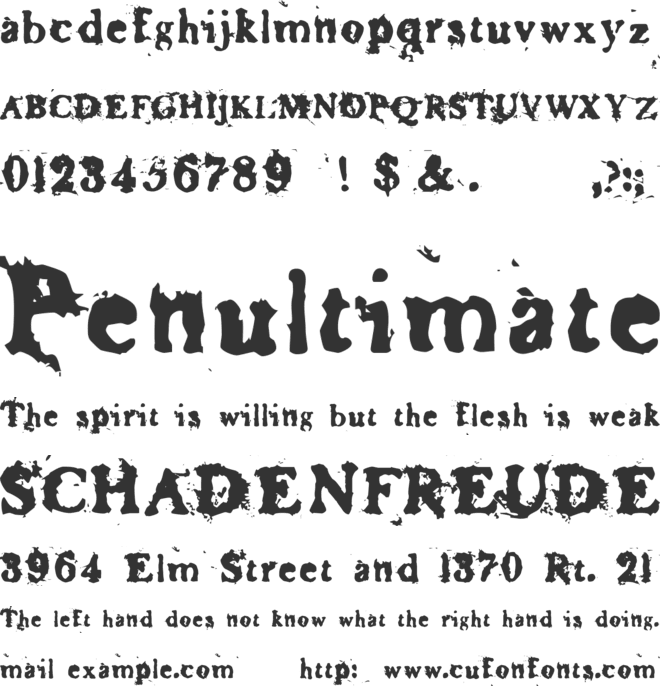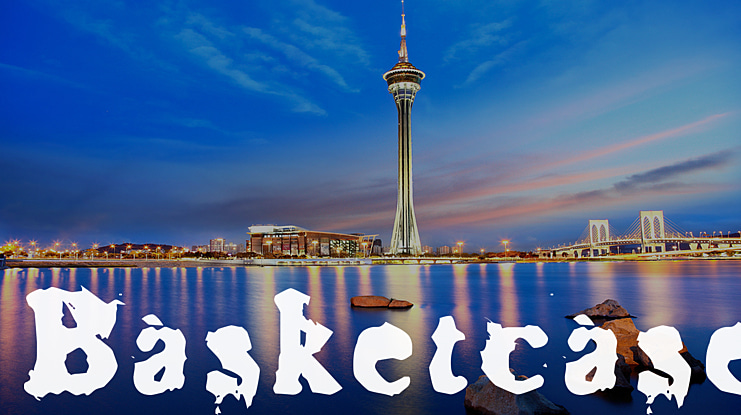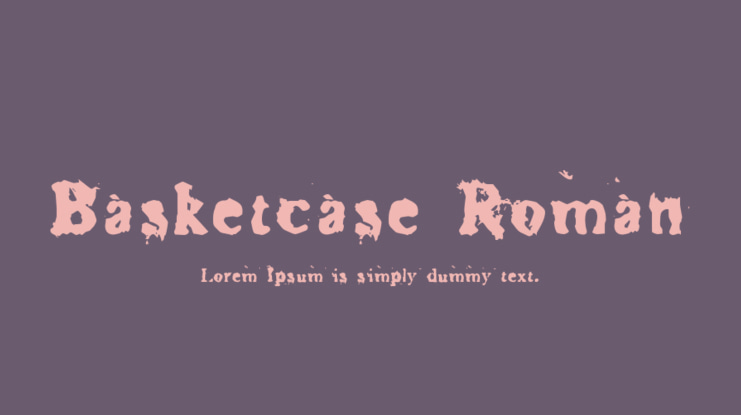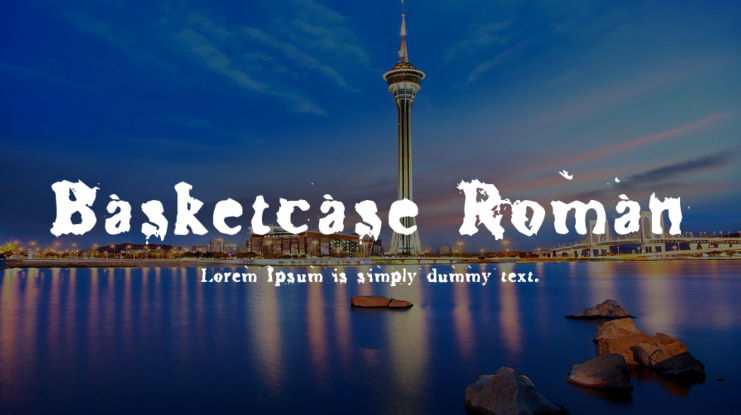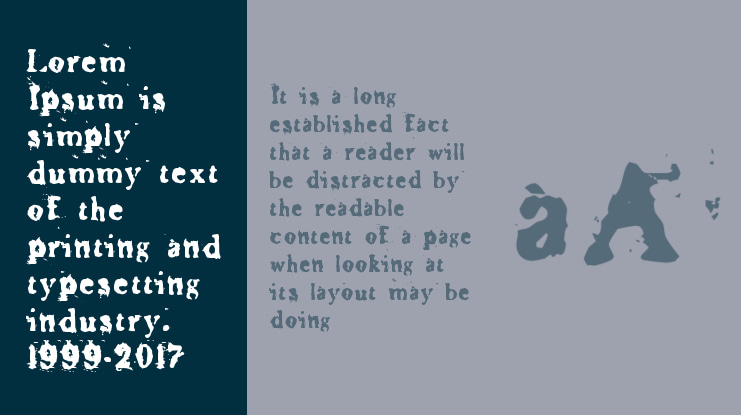
Basketcase Roman Font
I lost about six-hundred dollars worth of antique typeface books in a flood two
years ago. A few were salvaged, albeit in lousy condition: pages stuck together,
mud creamed into the thread of the folios, destruction of the spines.
Basketcase-Roman is the Phoenix risen from these sad and mulchified
pages. I hope you enjoy it and find it useful. I know that its creation
certainly helped me blot out my strong misgivings about the ways of Mother
Nature.